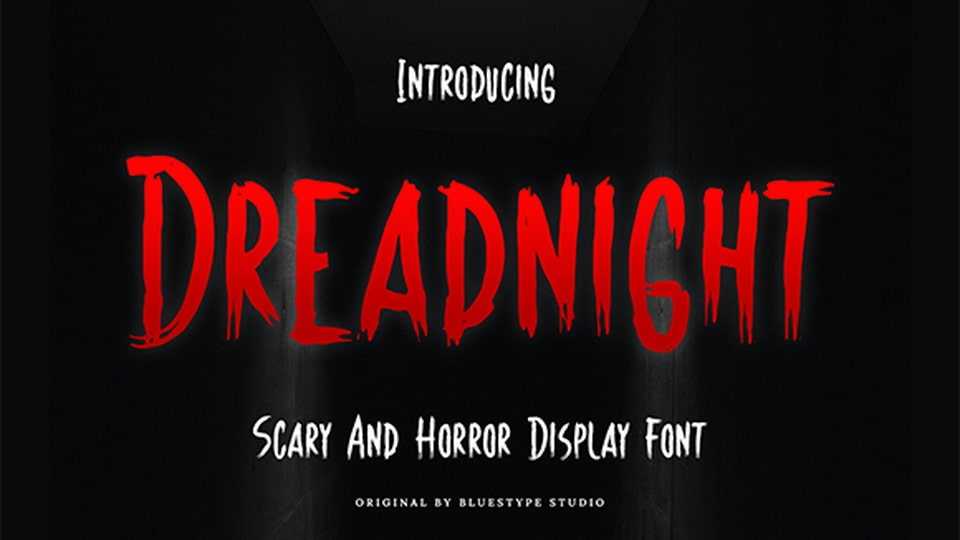
Download Dreadnight font, a horror-themed typeface created with brush strokes that create shapes resembling dripping blood, in celebration of Halloween.